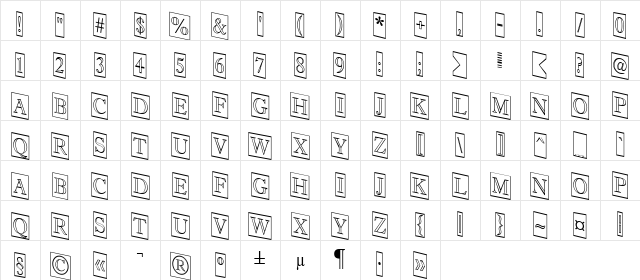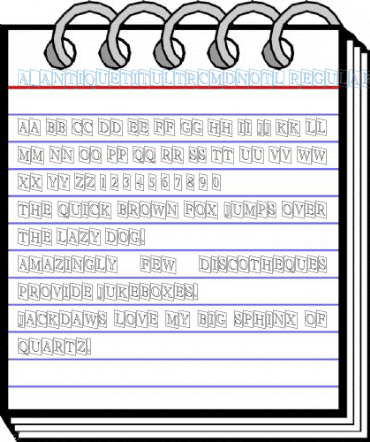
a_AntiqueTitulTrCmDnOtl Regular Free Font
a_AntiqueTitulTrCmDnOtl Regular
Design Context for a_AntiqueTitulTrCmDnOtl
a_AntiqueTitulTrCmDnOtl wears its vintage influences proudly, with letterforms that recall mid-century signage, classic packaging, and nostalgia-driven design.
Ideal for diner signage, record shop branding, 70s/80s-themed projects, and heritage product labels.
Font Pairing: Combine a_AntiqueTitulTrCmDnOtl with a simple slab or neutral sans - period-accurate companions reinforce the vintage feel without competing for attention.
Pro Tip: Lean into a_AntiqueTitulTrCmDnOtl's period character by pairing it with aged paper textures, muted colour palettes, and vintage illustration styles.